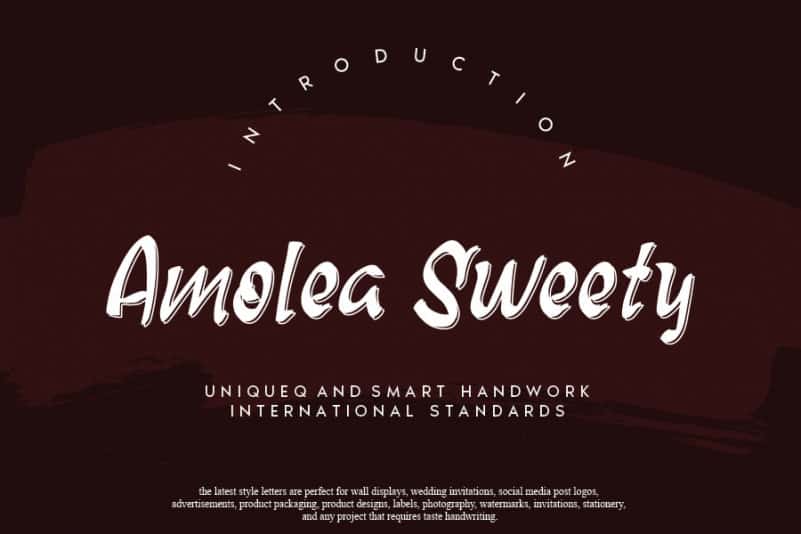
Amolea Sweety Script Font
Amolea Sweety Script Font is a great display font, carefully handcrafted to become a true favorite. Its casual charm makes it appear wonderfully down-to-earth, readable and, ultimately, incredibly versatile. Amolea Sweety will look outstanding in any context, whether it’s being used on busy backgrounds or as a standalone headline!
the latest style letters are perfect for wall displays, wedding invitations, social media post logos,
advertisements, product packaging, product designs, labels, photography, watermarks, invitations, stationery,
and any project that requires taste handwriting.